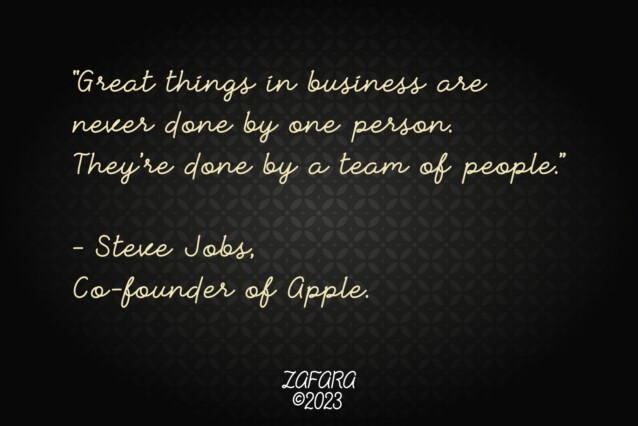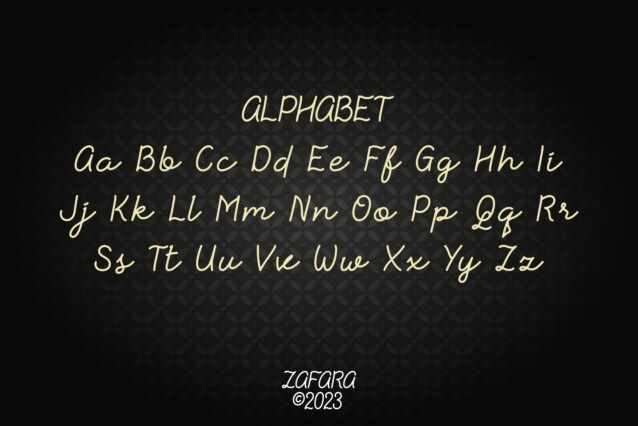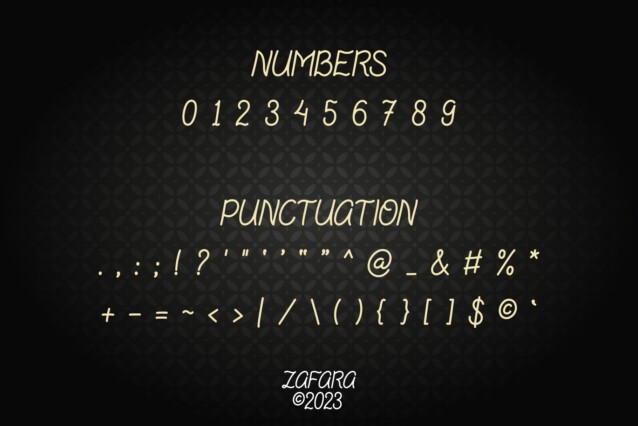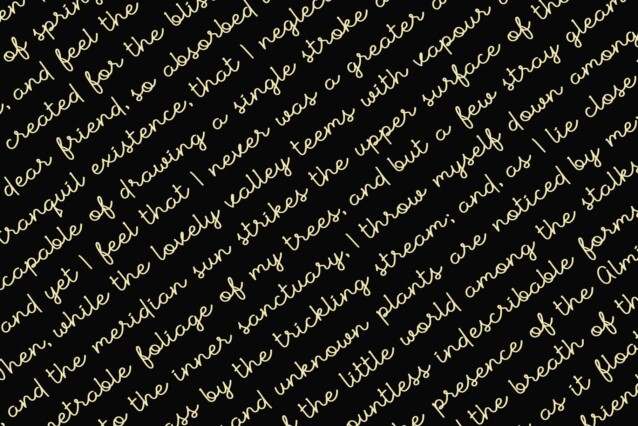
Hirosuke Font
Hirosuke Font is a font designed to look like handwritten script. This font can be used for personal branding, invitations, and other designs that require a personal touch. These fonts can be elegant, sophisticated, or even whimsical depending on the specific font.